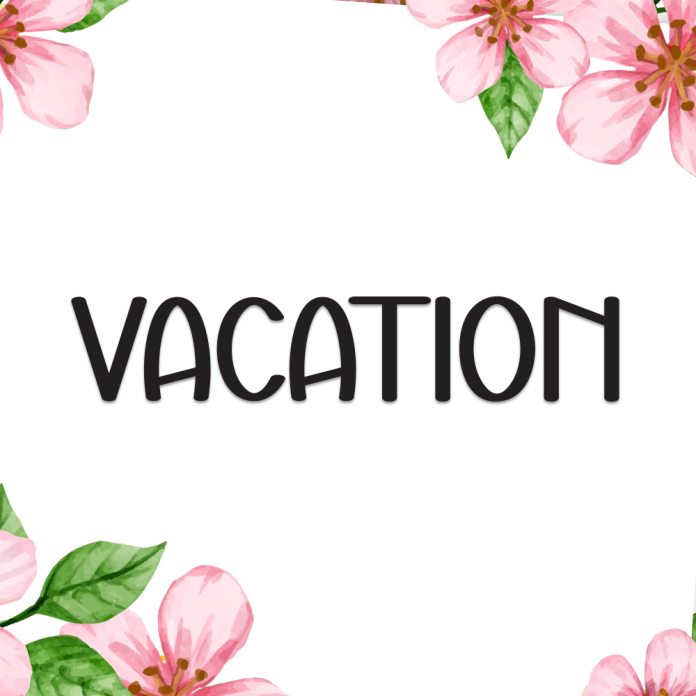
Vacation is a fun, bold, and energetic display font that captures the spirit of summer holidays and tropical escapes. With its chunky shapes and cheerful vibe, it’s perfect for designs that need to feel warm, carefree, and adventurous.
Ideal for travel posters, beach party invites, summer sale ads, children’s projects, branding, and social media graphics — Vacation instantly brings sunshine to your text.
Bold and rounded letterforms
Playful, summery aesthetic
Eye-catching for headlines and titles
Great for seasonal and travel-themed designs
Pack your bags and let your designs go on a trip with the cheerful energy of Vacation.